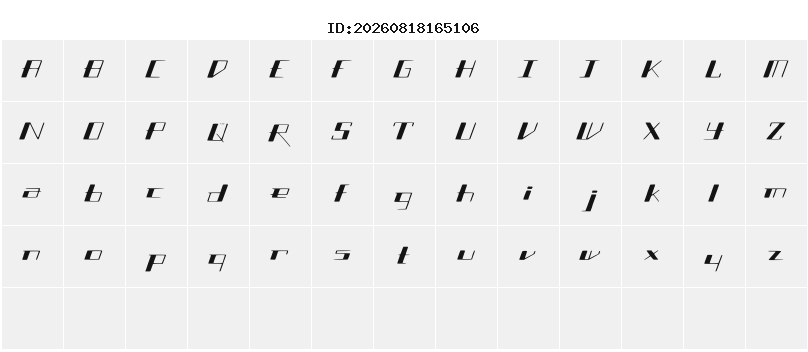
SlantGeo Preview
• Font Name: SlantGeo
• Full Font Name: SlantGeo
• PostScript Name: SlantGeo
About SlantGeo.ttf
SlantGeo.ttf is a modern, elegant sans-serif font designed for ultimate readability and visual harmony. Perfect for branding, headlines, web design, and print materials.